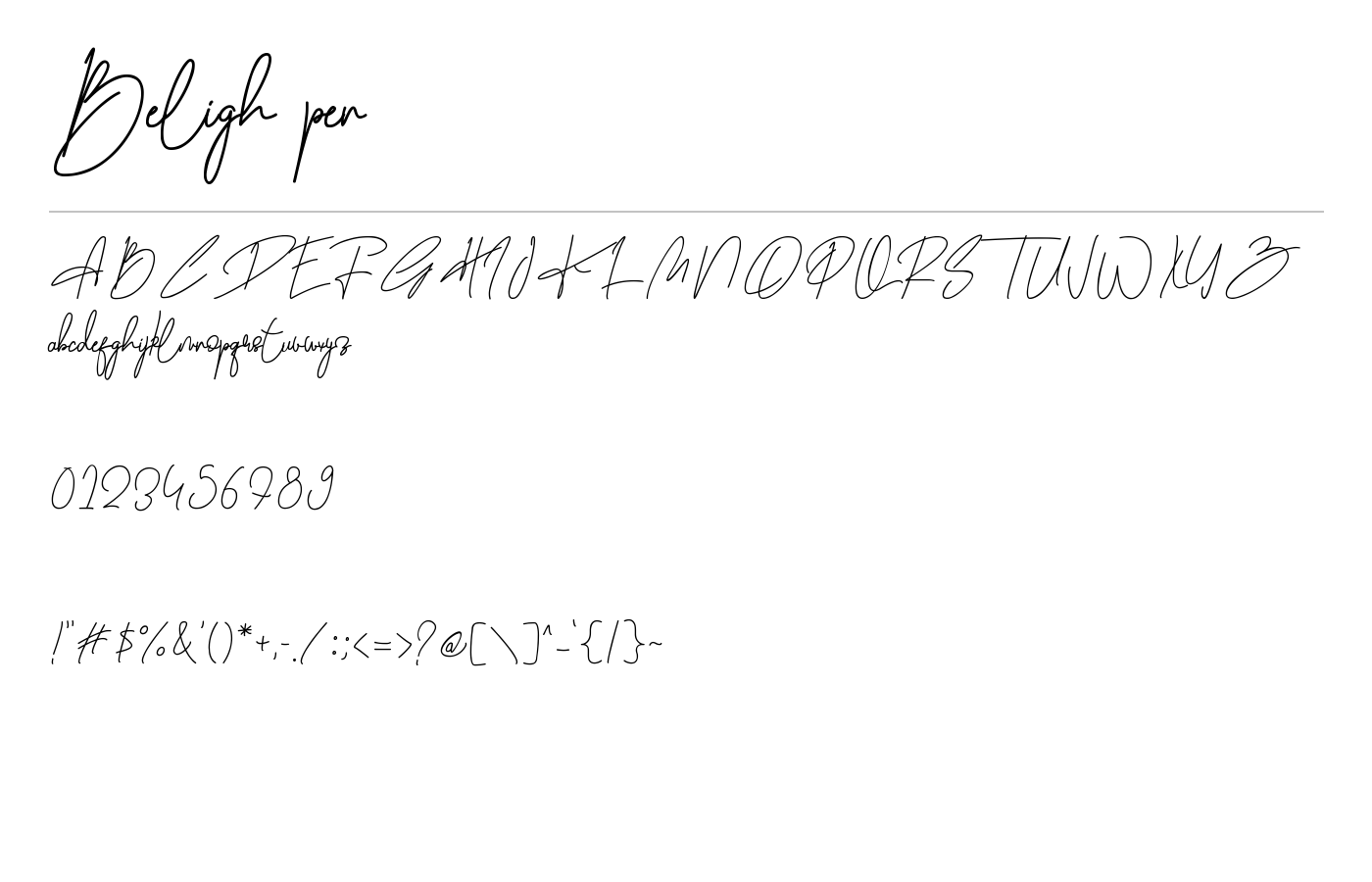
Beligh Pen is a light, elegant handwritten script font with a natural, flowing style that mimics fine penmanship. Its tall, slender letterforms and delicate strokes give it a sophisticated yet personal touch, making it ideal for invitations, branding, and creative projects that seek a refined, artistic flair. This font works beautifully in contexts where elegance and individuality are key, such as luxury packaging, fashion logos, and stylish editorial designs.
Beligh pen Font
About Beligh pen Font